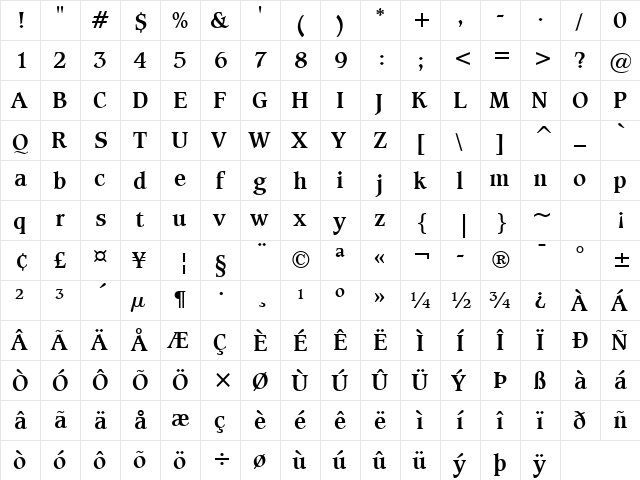
Caxton Bold Font Preview
Caxton Bold
Caxton Bold Font Details
Design Context for Caxton Typeface
Caxton takes a measured approach to typography — its balanced proportions and neutral character make it a reliable workhorse for both digital and print work. The heavy weight commands attention and anchors typographic hierarchies.
Pro Tip: Use Caxton in both headline and body roles to test its range before committing to a single application.